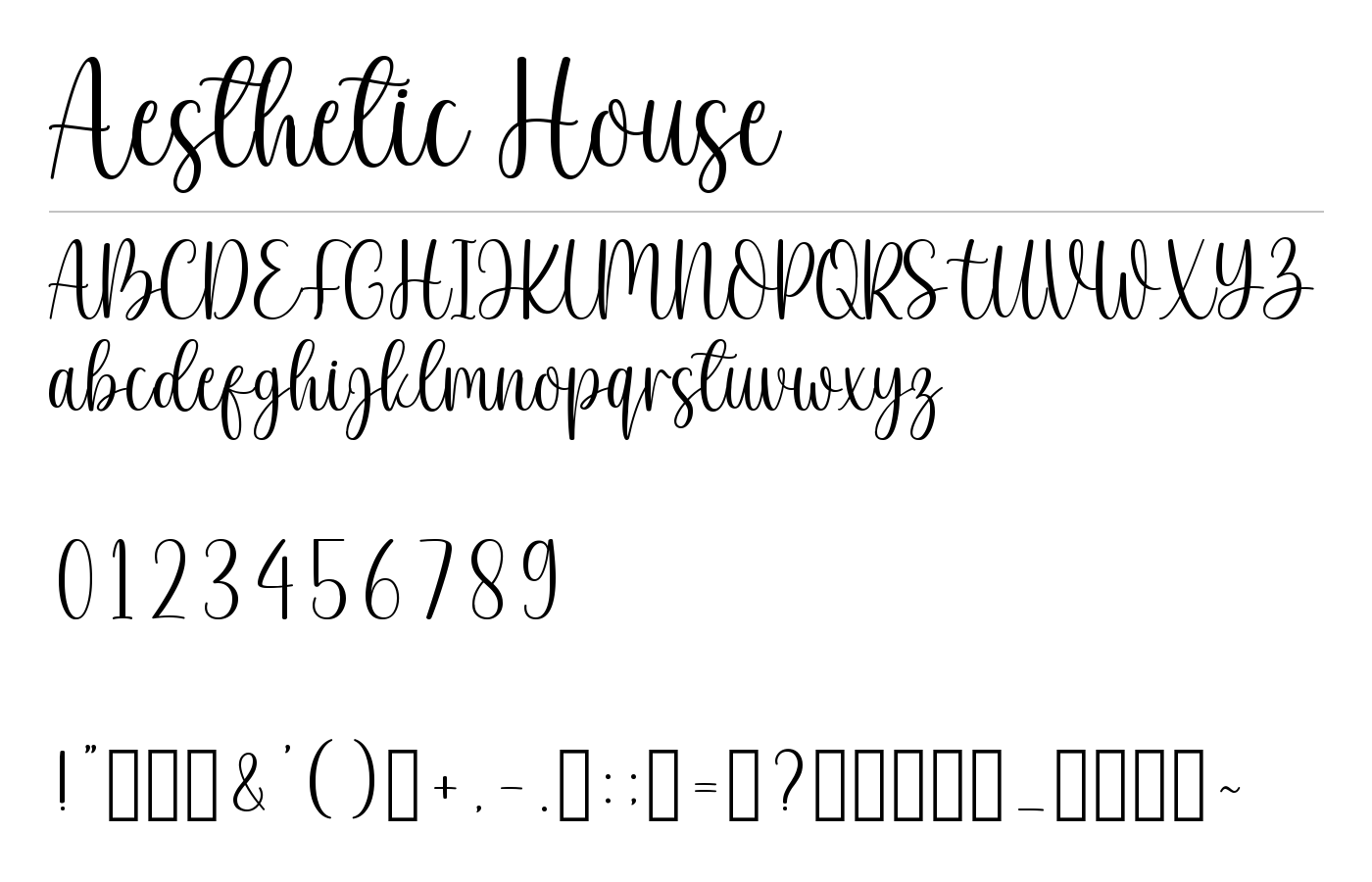
Aesthetic House is a slender, elegant script font with a delicate and flowing style that evokes a sense of charm and sophistication. Its tall, narrow letterforms with smooth curves and fine stroke contrast make it perfect for feminine branding, wedding invitations, and stylish editorial projects where a graceful and approachable look is desired. This font shines best in headlines and decorative text where its unique, hand-drawn personality can truly stand out.
Aesthetic House Font
About Aesthetic House Font
| Font family | Aesthetic House Font |
| Designer | Rayvaldo Rizki Pratama Augusta |